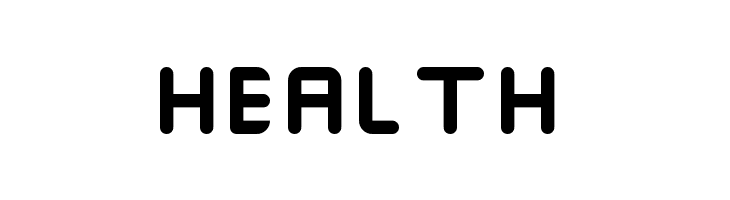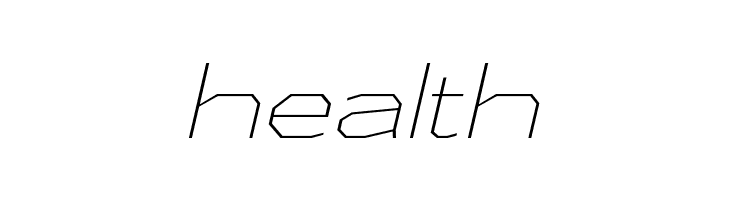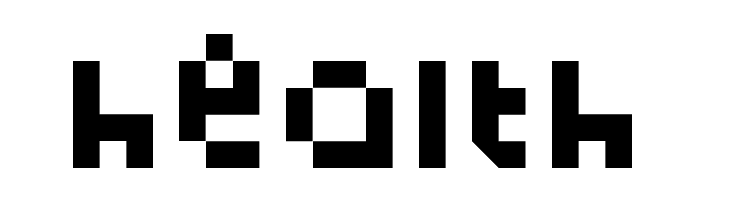
( Nick )
A modern, geometric font with clean lines and rounded edges, perfect for digital use.
( Regina Quesada - reginaqr.blogspot.com )
A geometric, monospaced font with clean lines and uniform character width.
( Sean Bartlett - www.bartlettdigital.com )
A modern, geometric font with a structured and technical appearance.
( Typodermic Fonts - Ray Larabie - www.typodermicfonts.com/ )
A modern, geometric italic font with clean, angular lines and subtle contrast.
( Zetafonts - www.zetafonts.com )
A bold, rounded sans-serif font with a modern and friendly appearance.
( Zetafonts - www.zetafonts.com )
A bold, modern typeface with rounded edges and geometric shapes.
( beery )
A pixelated, blocky font with a retro digital aesthetic.
A playful, hand-drawn font with cartoon-like features and bold strokes.
A modern, geometric font with rounded edges and a futuristic style.
( Áron Varga - gl0w.org )
A modern, geometric font with clean lines and uniform stroke widths.